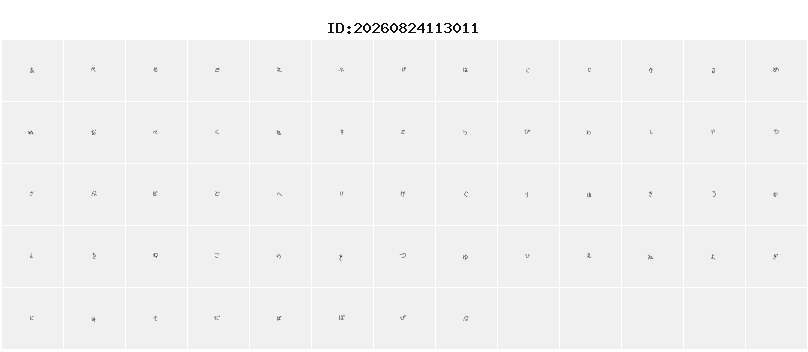
Sakura Irohanihoheto Preview
• Font Name: Sakura Irohanihoheto
• Font ID: Sakura Irohanihoheto:Version 1.00
• Full Font Name: Sakura Irohanihoheto
• Version: Version 1.00 July 21, 2008, initial release
• PostScript Name: SakuraIrohanihoheto
• Character Count: 75
About Sakura Irohanihoheto.ttf
Sakura Irohanihoheto.ttf is a modern, elegant sans-serif font designed for ultimate readability and visual harmony. Perfect for branding, headlines, web design, and print materials.